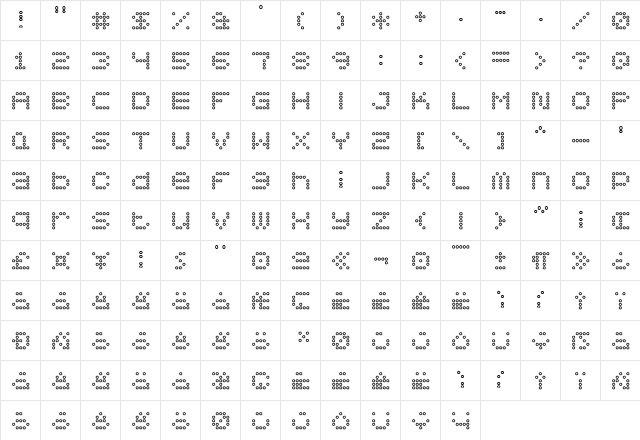
5x5 Dots Outline Regular
Design Context for 5x5 Dots Outline Typeface
5x5 Dots Outline is rooted in pixel-grid construction, making it a natural fit for game UI, retro computing aesthetics, and digital nostalgia projects.
Well-suited to indie game interfaces, retro computing aesthetics, and pixel art-adjacent design work.
Pro Tip: Use 5x5 Dots Outline at sizes that align with its pixel grid for the sharpest rendering — scaling to non-integer multiples can introduce unwanted blur.